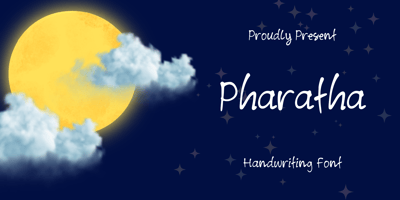
Pharatha
Pharatha font
Pharatha Font Family was designed by published by Sidkia Fonts. Pharatha contains 1 styles and family package options. Pharatha is a unique and simple handwritten font. Whether you’re using it for crafts, digital design, presentations, or making greeting cards, this font has the potential to become your favorite go-to font, no matter the occasion!